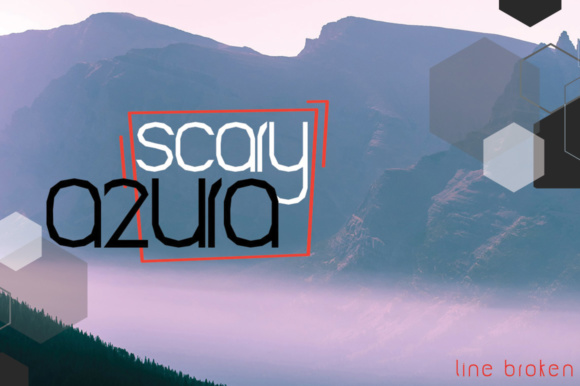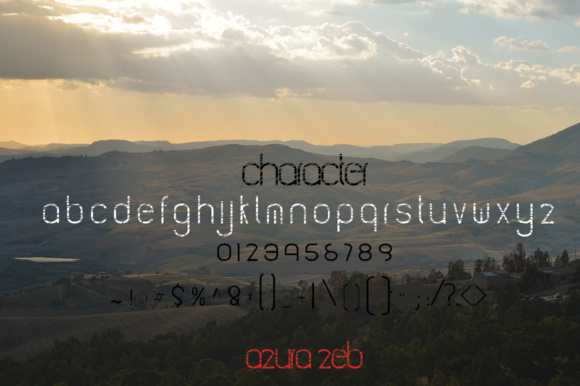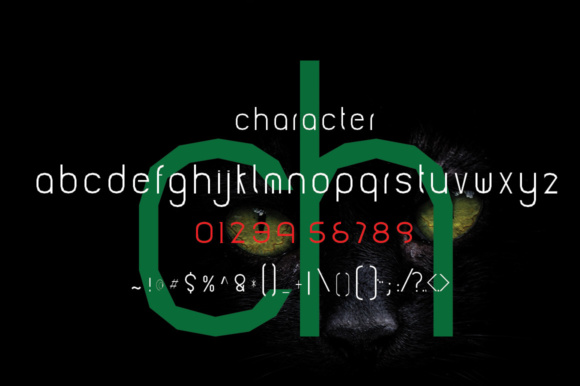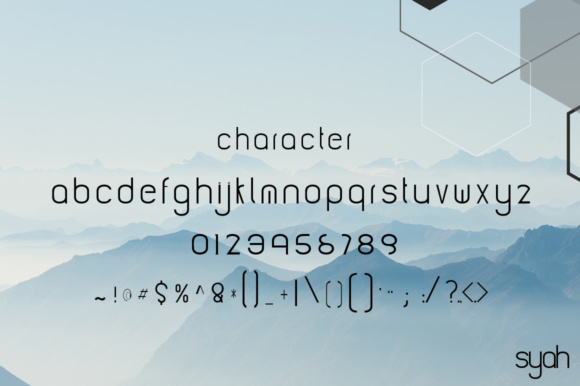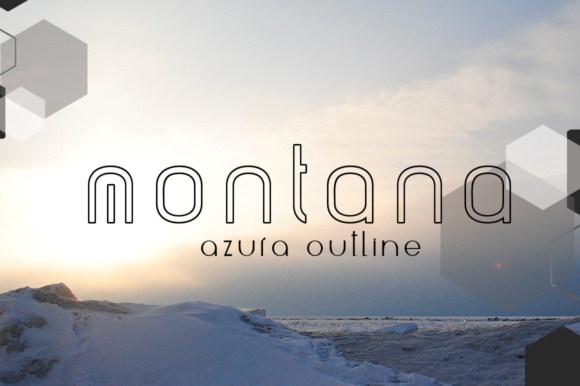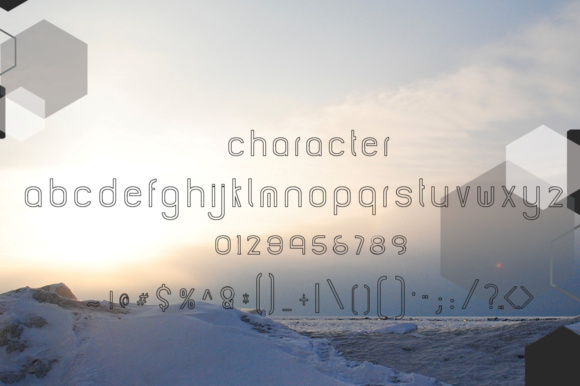
Unleashing Creativity with Azura Font
As a designer, there’s nothing quite like the thrill of bringing an idea to life. You’re browsing through a sea of fonts, searching for the perfect match to elevate your project. Suddenly, you stumble upon a sans serif gem that sparks excitement and curiosity. For many creatives, this moment is a turning point, setting the stage for a visually stunning outcome. And that’s exactly what Azura Font aims to deliver.
Azura Font is a versatile sans serif family that comes in three distinct variations: regular, scary, and zeb. Its clean lines and thoughtful design make it an ideal choice for posters, large-scale artwork, and any project where readability is key. What sets Azura Font apart is its perfect balance of style and functionality, making it a valuable asset for designers who demand the best.
Azura Font Key Features
- Font Family: Azura is a sans-serif font family that offers a modern and clean look.
- Unique Characteristics: Azura features a unique blend of geometric and organic shapes, giving it a distinctive and modern aesthetic.
- Font Weight and Style: Azura is available in multiple weights (Light, Regular, Medium, Bold, and Black) and styles (Italic and Oblique), offering flexibility for various design needs.
Azura Font Review
As a designer, I recently had the chance to work with the Azura font, and I’m excited to share my honest thoughts on it.
- Elegant and sophisticated feel: Azura has a sleek, modern design that’s perfect for high-end branding and luxury projects.
- Good legibility: The font is easy to read, even at smaller sizes, making it a great choice for body text and captions.
- Large character set: Azura comes with a comprehensive set of glyphs, including a wide range of languages and special characters.
- Limited expressiveness: While Azura is elegant, it’s also quite straightforward and doesn’t offer a lot of personality or flair.
- No bold or italic weights: If you need to create emphasis or add visual interest to your text, you’ll need to rely on other fonts or manual formatting.
- Not suitable for casual or playful projects: Azura’s formal tone makes it less suitable for projects that require a more relaxed or humorous vibe.
Overall, I think Azura is a solid choice for designers who need a sophisticated, elegant font for their projects. However, it may not be the best fit for more creative or playful endeavors.
Getting the Most Out of Azura Font
To get the most out of the Azura font, use it in combination with bold or italic text to create visual interest. You can also use it in combination with other fonts to create a unique and stylish design.
The Azura font is commonly used in creative and design projects, such as:
- Graphic design projects
- Typography projects
- Wedding invitations
- Business cards